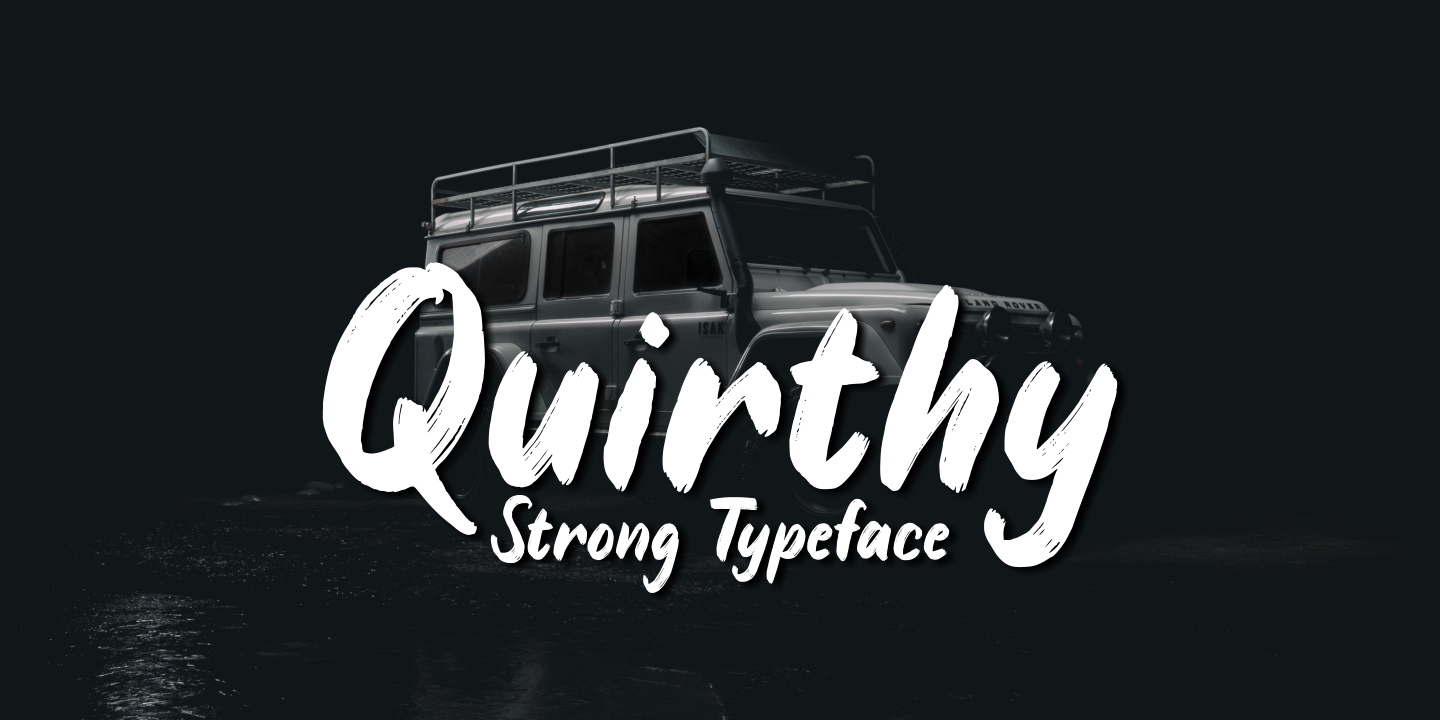
Quirthy Font is perfect for playful brand identities, creative agency logos, whimsical children's products, fun retail campaigns, quirky art projects, unconventional marketing materials, spirited event promotions, and cheerful lifestyle designs. This delightful typeface excels in applications requiring personality-driven character and memorable uniqueness that captures attention through distinctive charm and playful visual appeal.
What makes Quirthy Font exciting is its irresistible charm that combines playful eccentricity with sophisticated design intelligence to create instantly memorable brand experiences. The font features uniquely crafted letterforms with endearing irregularities and spirited personality that deliver authentic character while maintaining professional quality perfect for brands seeking to establish distinctive market presence through genuine creative expression and playful authenticity.
The Quirthy Font family includes regular and playful variations with charming stylistic elements, offering designers comprehensive tools for creating memorable quirky compositions. The family provides consistent whimsical aesthetic with varying personality levels for versatile creative communications and distinctive branding projects requiring genuine character appeal and playful market differentiation.
The charmingly crafted letterforms of Quirthy Font ensure excellent readability while maximizing playful appeal and distinctive personality, making it ideal for creative websites, product packaging, and memorable marketing materials. This delightful typeface combines quirky authenticity with modern technical standards for outstanding performance in contemporary design environments requiring genuine personality and creative market differentiation.